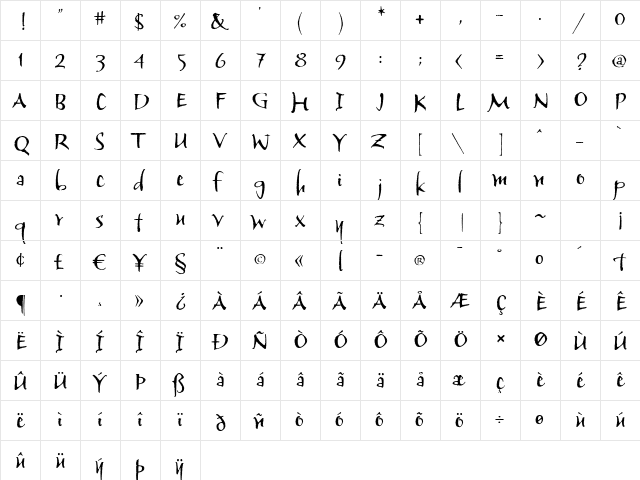
P22 Tai Chi Regular
| Foundry | P22 type foundry / IHOF |
| Designer | Stephen Rapp |
Design Context for P22 Tai Chi Typeface
P22 Tai Chi is a composed and adaptable typeface that performs quietly and consistently across a wide range of design contexts.